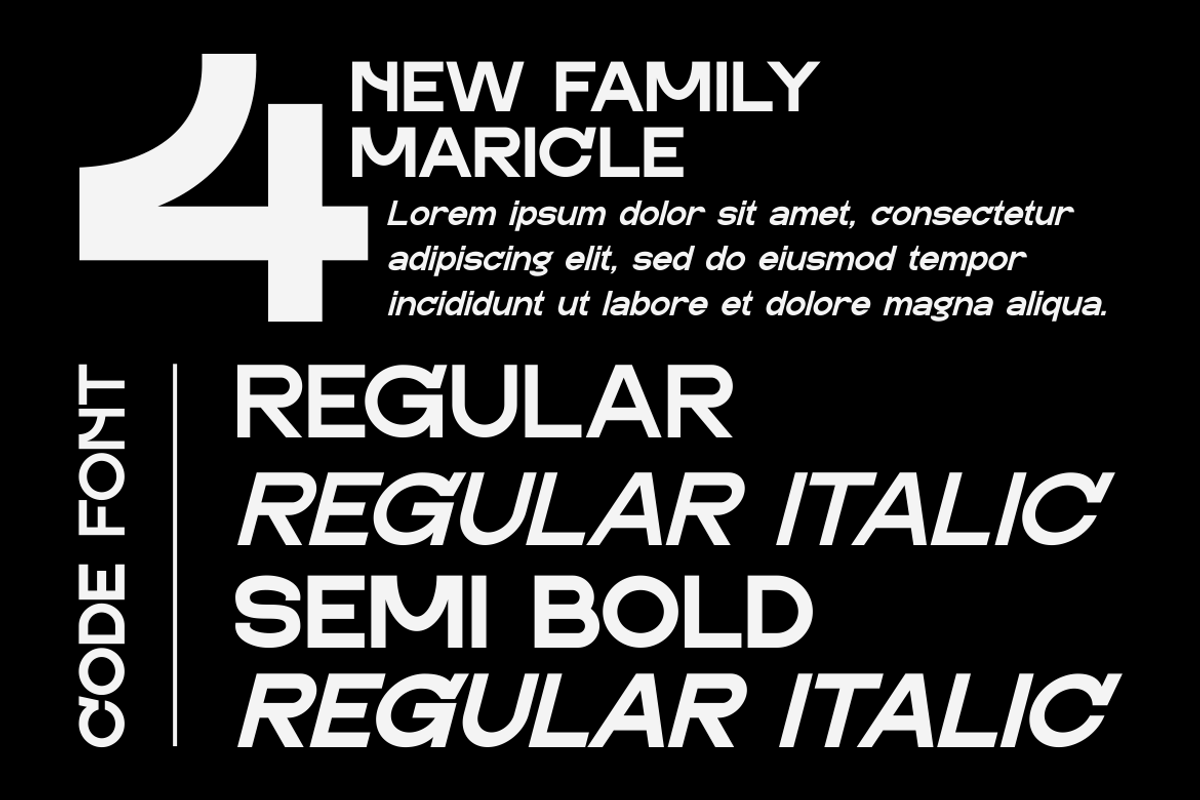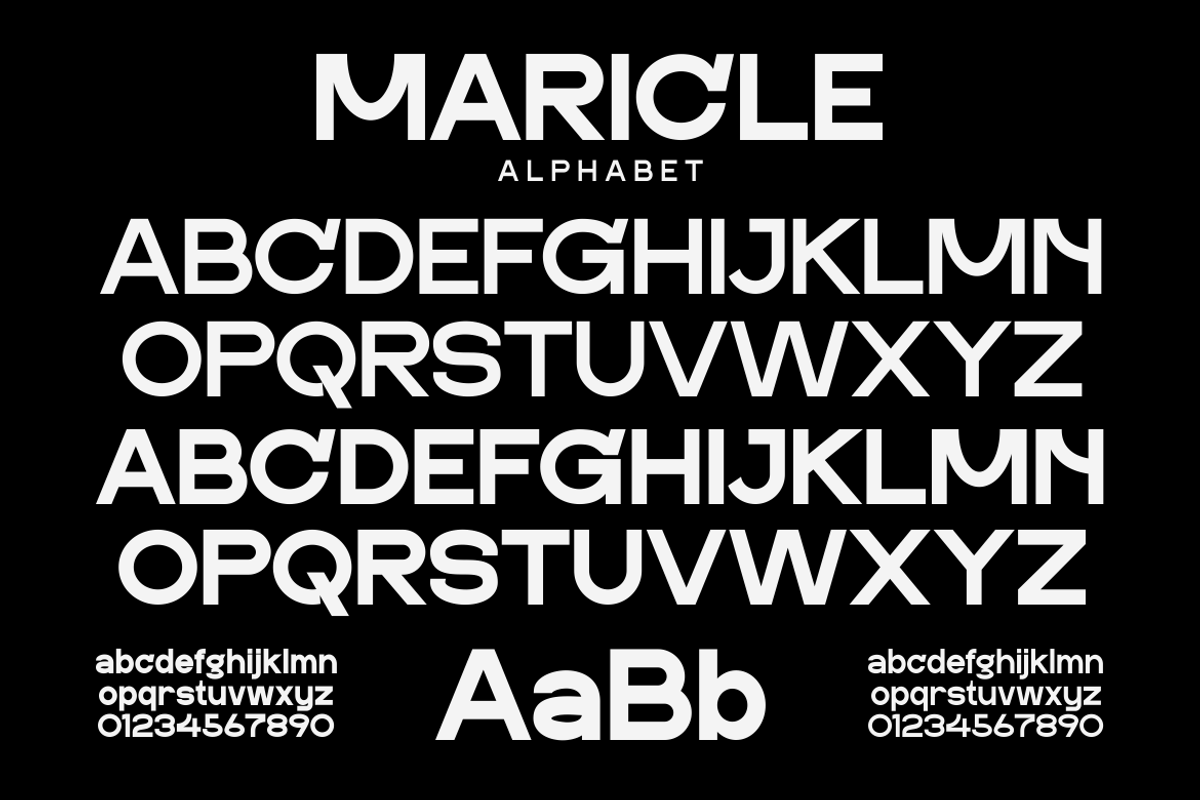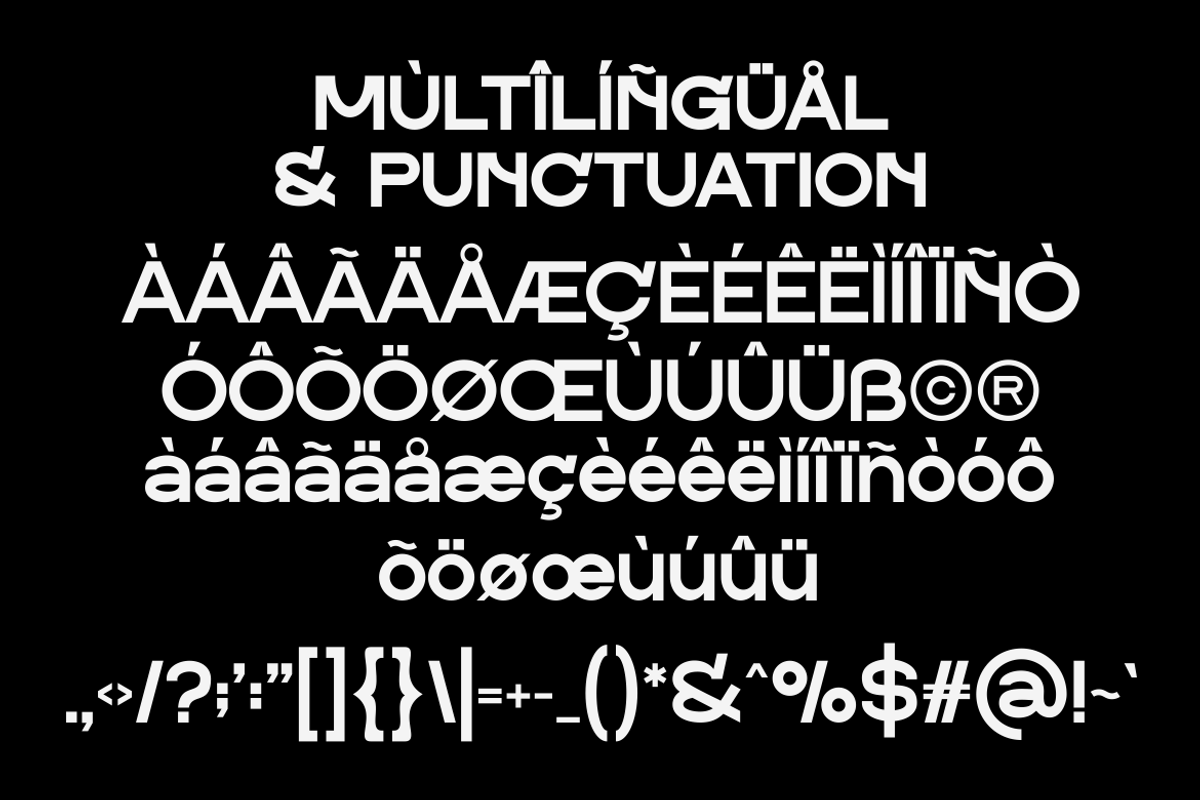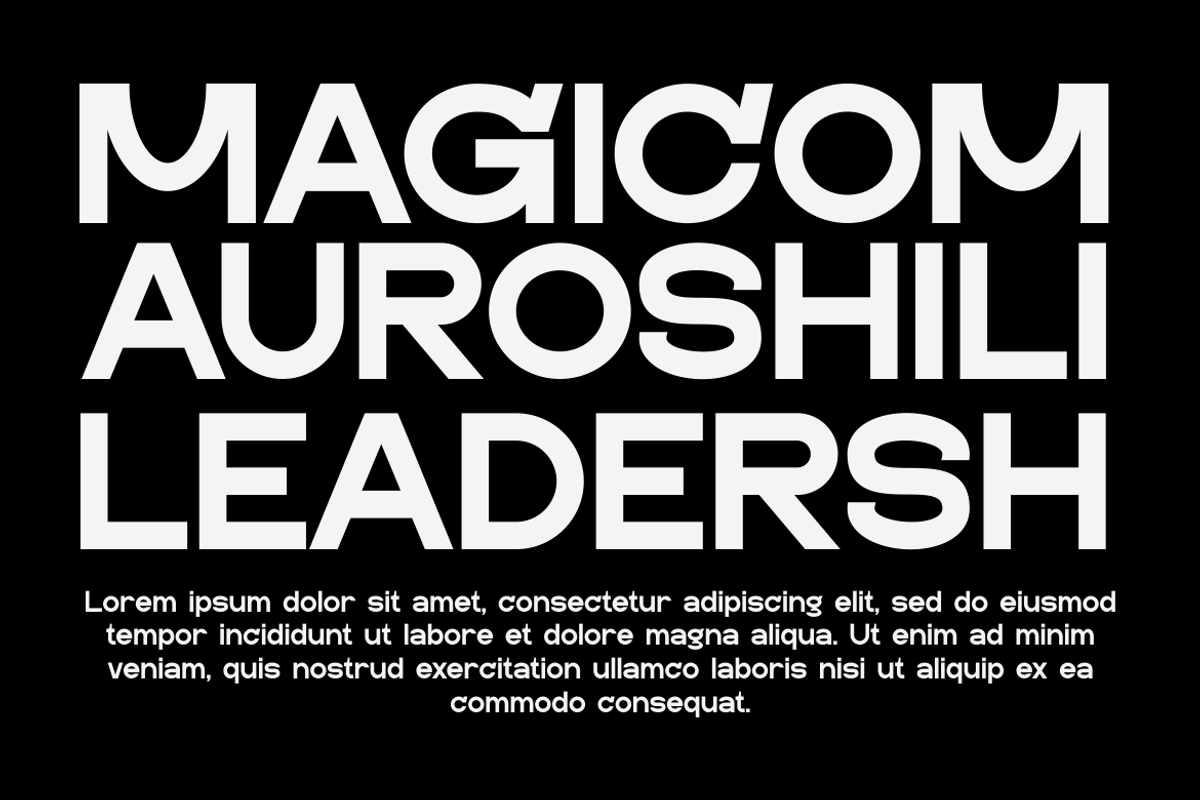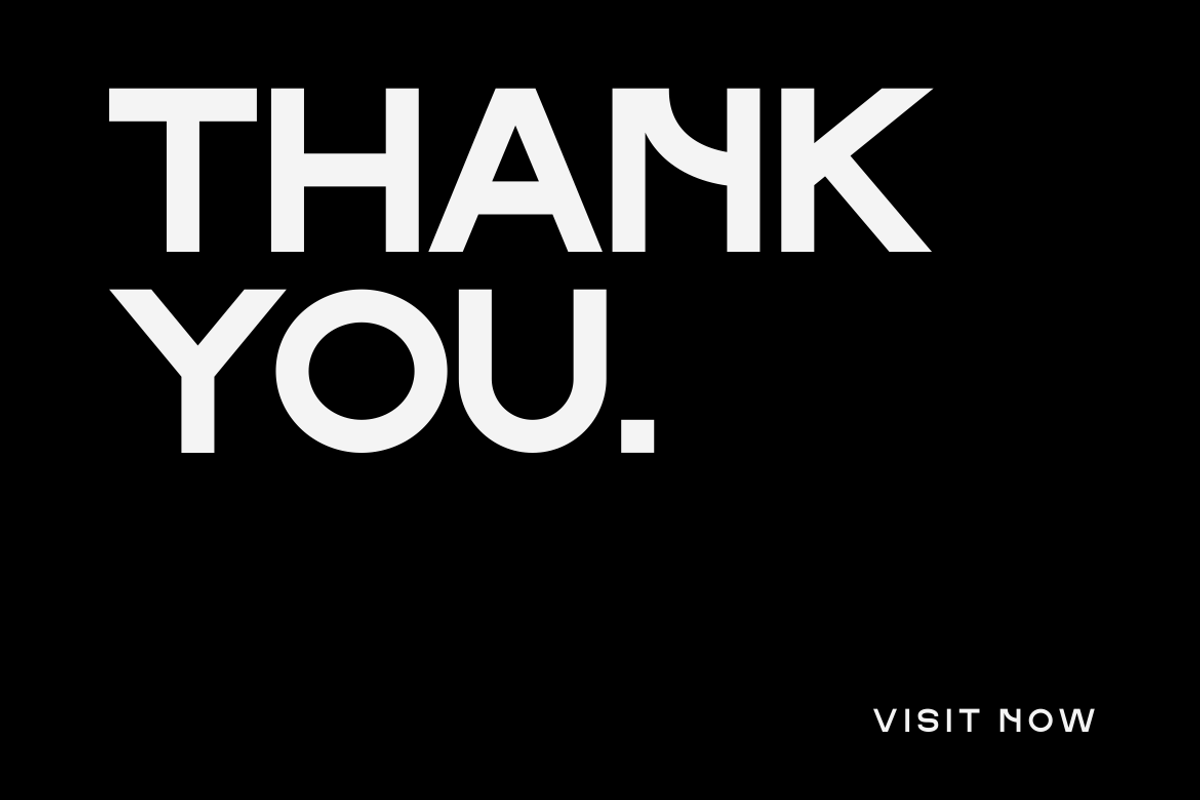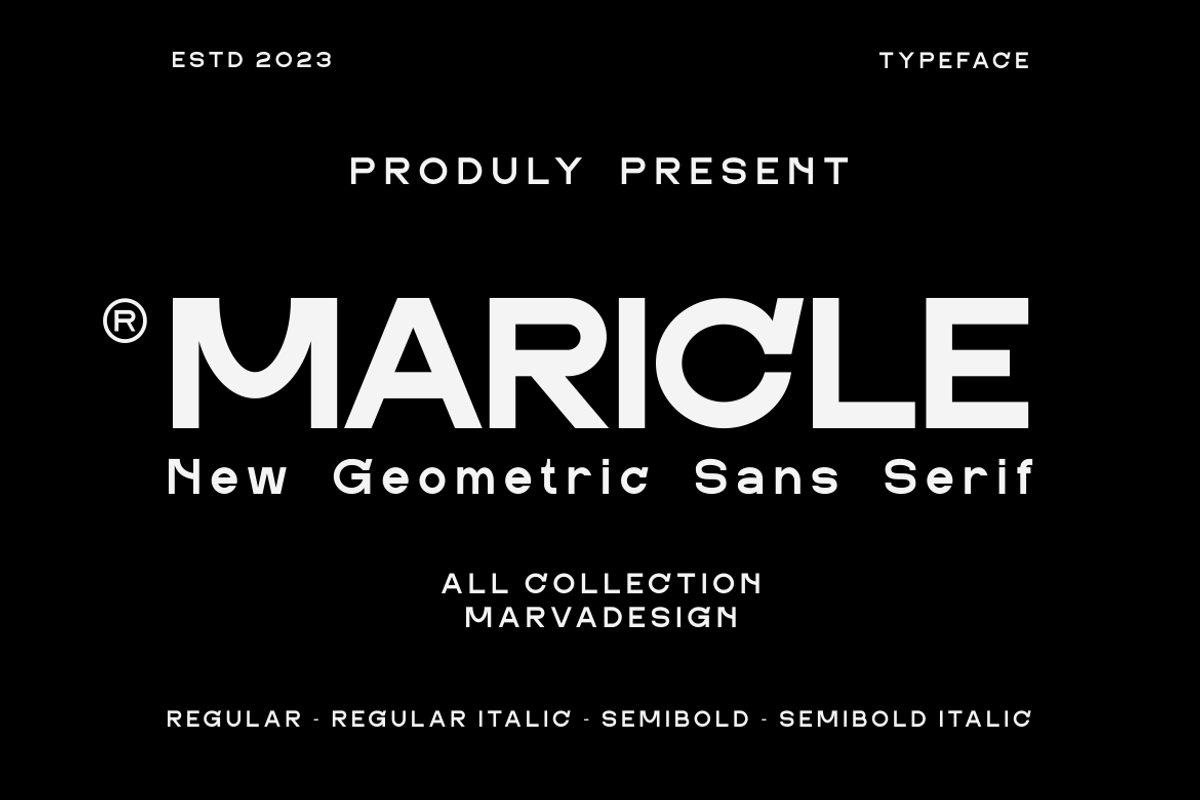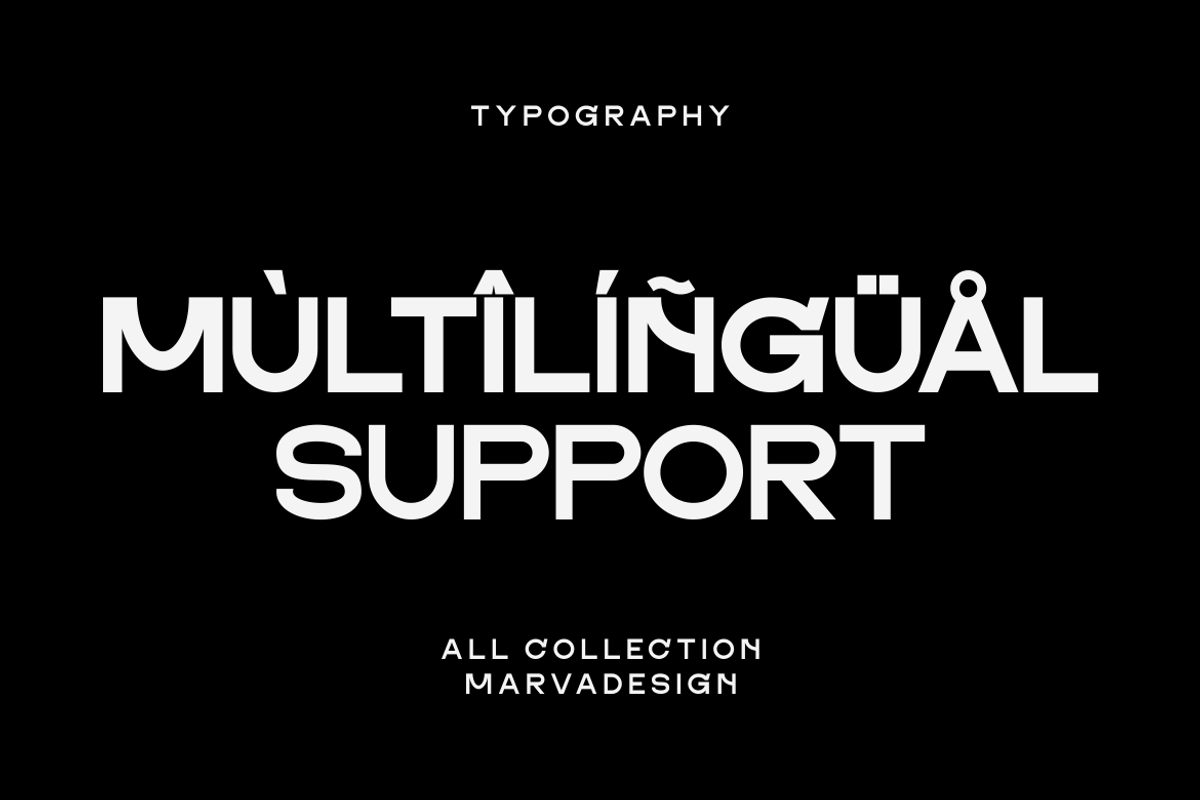
Maricle - A Modern Geometric Sans
Introducing our new product MARICLE Font - Modern Font MARICLE Font** - Modern Font is a bold and authentic display font. The font is suitable for any branding project like logo,Template Design, Product and many more. outstanding in a wide range of contexts.